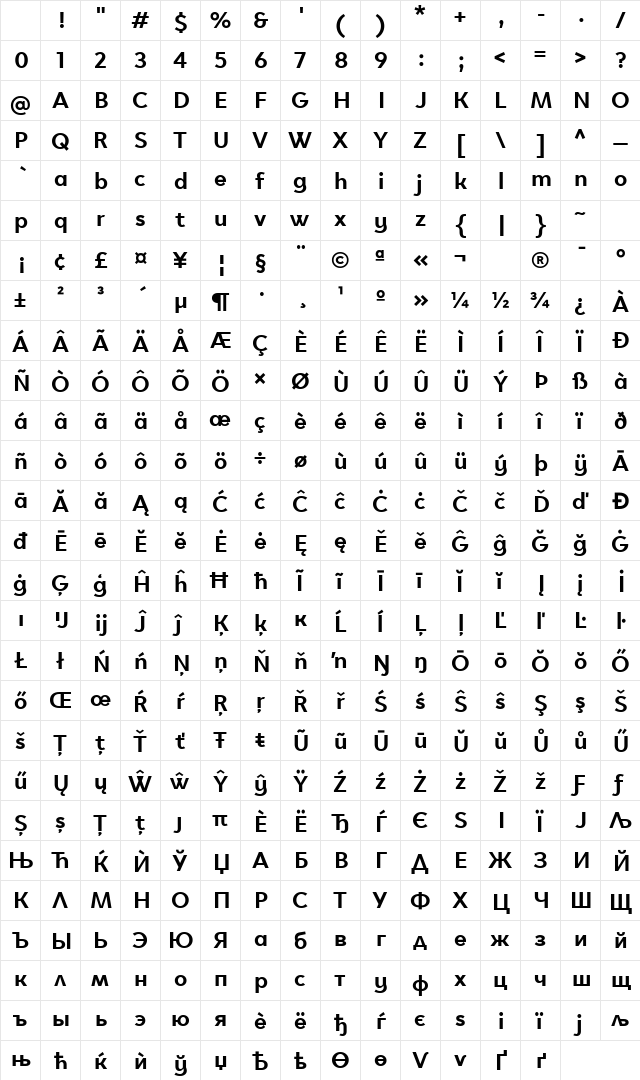
Complete Clother Bold glyph index. Displaying only characters natively supported by Clother Bold font.
Clother is a composed and adaptable typeface that performs quietly and consistently across a wide range of design contexts. Its bold stroke weight gives it real presence on the page.